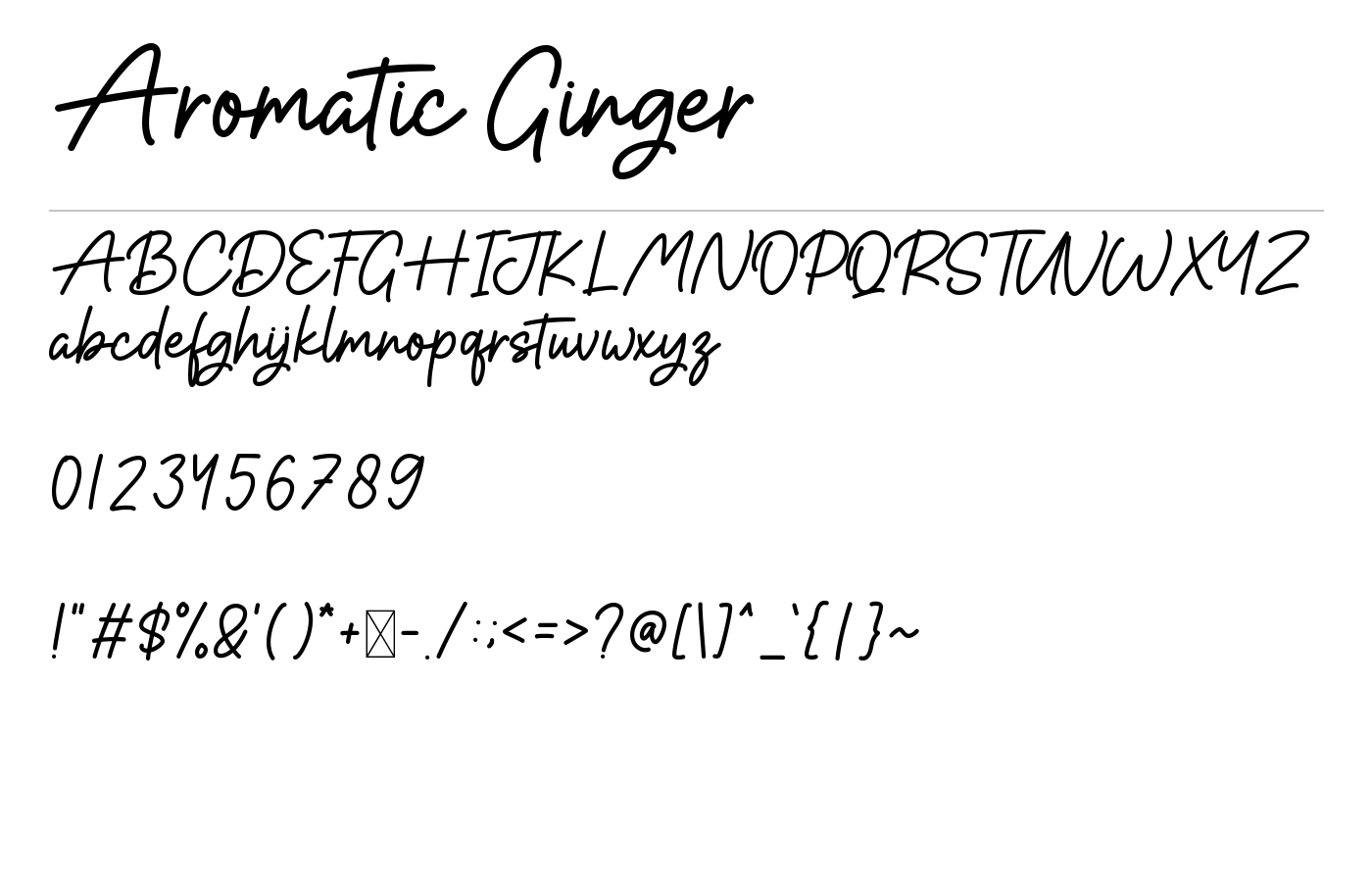
Aromatic Ginger is a casual, handwritten script font characterized by its smooth, flowing strokes and lively, natural feel. With its light weight, moderate contrast, and slightly condensed letterforms, it offers an approachable and friendly personality, making it perfect for informal branding, personal projects, and creative headlines. Its clear readability and playful elegance suit lifestyle blogs, invitations, and packaging that aim to convey warmth and authenticity.
Aromatic Ginger Font
About Aromatic Ginger Font